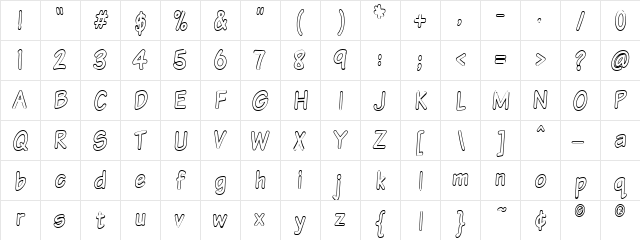
VTCSundayKomixTallOutline Outline
| Designer | WolfBainX |
Design Context for VTCSundayKomixTallOutline Typeface
VTCSundayKomixTallOutline brings ornamental detail and strong personality to headlines and identities, where visual impact matters more than quiet functionality.
Font Pairing: Pair with a clean neutral sans-serif for body copy to let VTCSundayKomixTallOutline's character lead without overwhelming the composition.
Pro Tip: Treat VTCSundayKomixTallOutline as the centrepiece of your typographic hierarchy. One strong heading set in a decorative face can carry an entire layout.